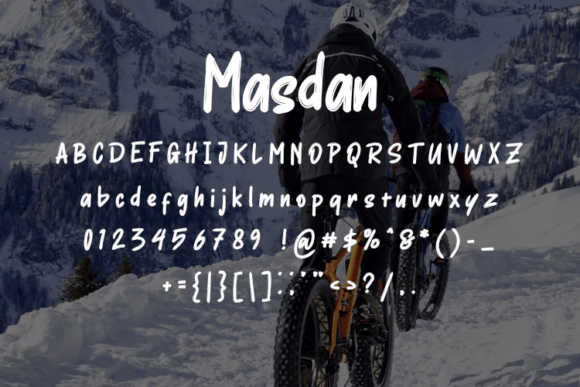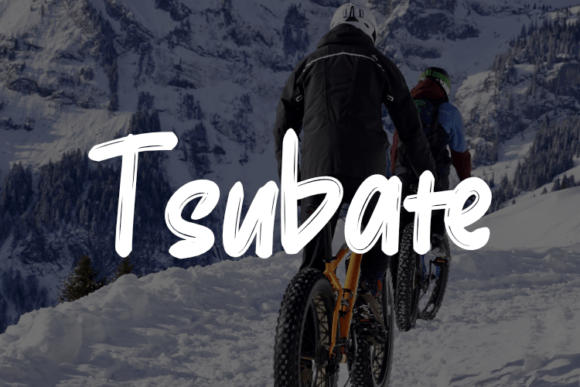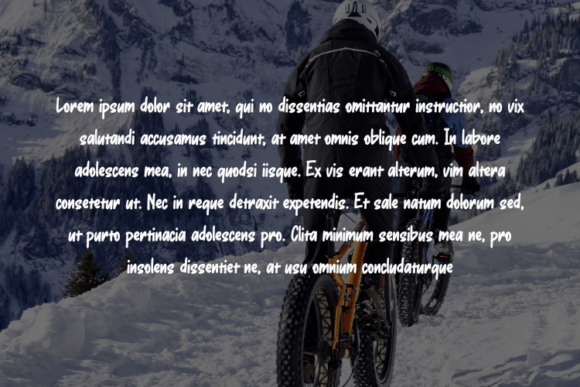
Unleashing Your Creativity with Masdan Font
The moment of pure creative bliss – the blank canvas, the blank page, the blank mind. It’s a feeling every designer knows and craves. But what happens when that blank slate needs a spark to set it ablaze? This is where the perfect design resource comes in – a font that’s both versatile and visually stunning. For designers seeking that extra oomph in their creative project, we’re excited to introduce the Masdan Font, a game-changing addition to your design repertoire.
| 👤 Author | Eric Kusuma |
With its crisp, contemporary style, Masdan Font is the ultimate go-to font for innovative clothing designs, expressive t-shirts, and distinctive product layouts. Whether you’re working on a high-quality design project or simply want to elevate your free download, this font is sure to impress. Its transparent background and seamless compatibility across all design platforms make it an invaluable asset for any designer looking to take their creative project to the next level.
- Unique characteristics include elegant lines, intricate details, and subtle texture
- Perfect for use in graphic design, digital art, and other creative endeavors
Honest Review: Masdan Font
I recently stumbled upon the Masdan Font while searching for a high-quality design resource for a creative project. I was blown away by its unique design and versatility. The font is perfect for modern designs, especially those requiring a clean and minimalist aesthetic.
Here are some things that I really like about the Masdan Font: ✨
- High-quality design: The font is well-crafted, with smooth lines and precise letterforms.
- Transparent background: The font’s transparent background makes it easy to use in various design applications.
- Limited font styles: The Masdan Font only comes in a few styles, which may not be sufficient for designers requiring a wide range of options.
- No bold weights: The font lacks bold weights, which can make it less suitable for headings or titles.
Overall, I’m impressed with the Masdan Font. It’s a great resource for designers seeking a high-quality, modern font for their creative projects. With a bit more development, I think this font could become a go-to choice for designers worldwide.
When using the Masdan Font, keep in mind that it’s a high-quality design resource that’s perfect for creative projects. To get the most out of it, use it on a transparent background to give your design a clean and modern look.
The Masdan Font is ideal for use in logos, branding materials, and marketing materials. It’s also great for creating visually appealing presentations and documents.